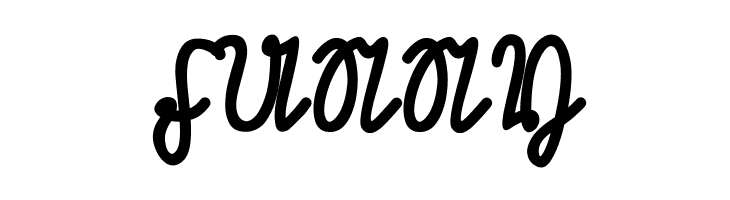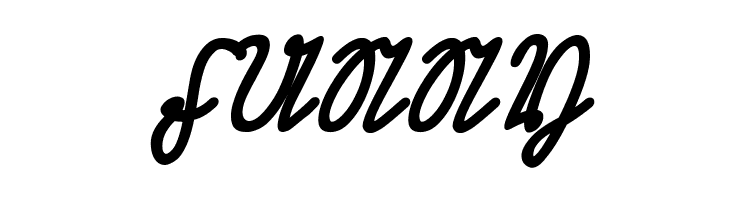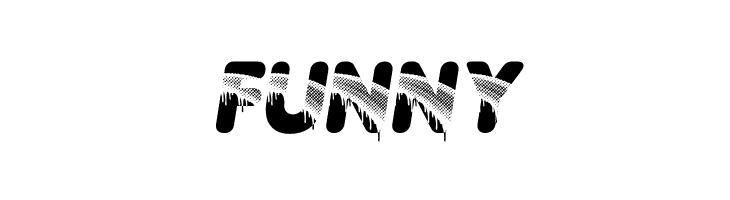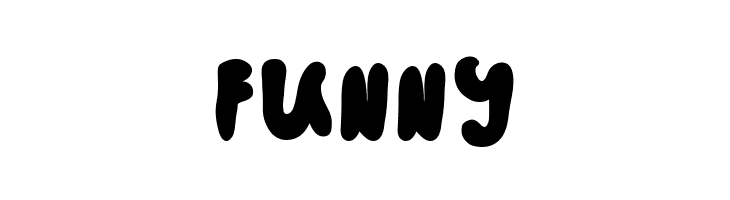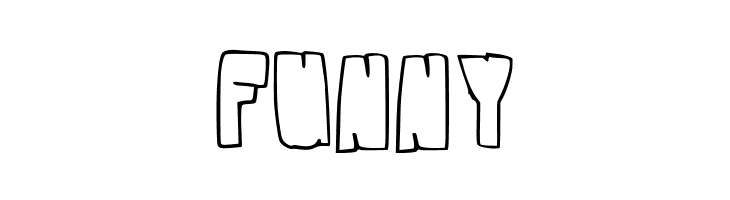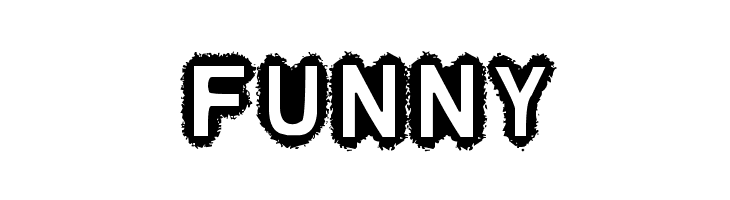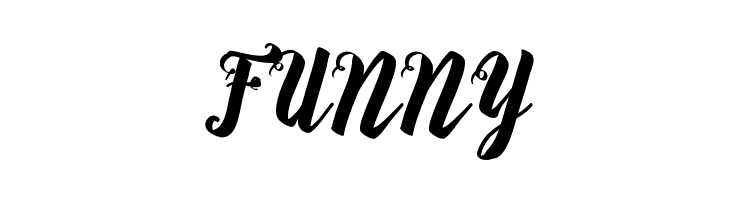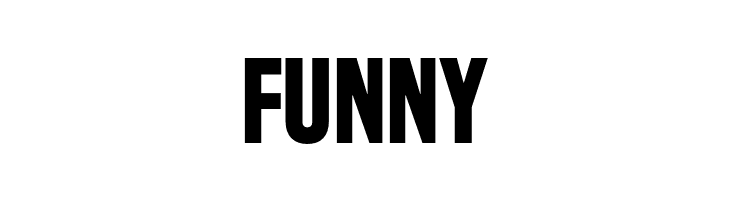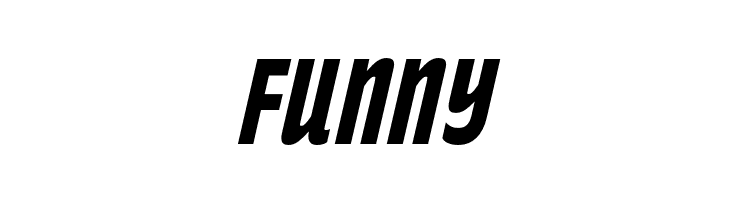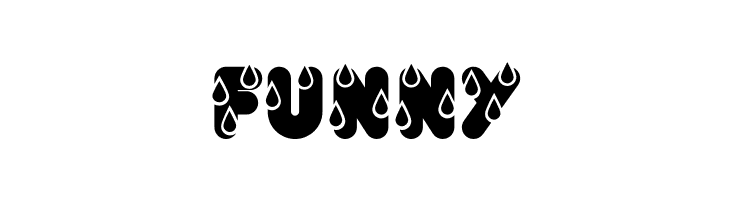
A bold, angular font with an industrial, Eastern Bloc aesthetic.
A bold, playful font with rounded edges and a bubbly, retro style.
A bold, playful, and italicized font with rounded strokes and close spacing.
A bold, playful font with a dripping effect on uppercase letters and solid, rounded lowercase letters.
A bold, playful font with raindrop motifs, perfect for creative and engaging designs.
A modern, geometric font with a bold and structured design.
A bold, modern sans-serif typeface with strong, consistent strokes.
A bold, modern sans-serif font with high legibility and balanced character spacing.
A modern, bold, italic sans-serif font with a sleek and slightly condensed style.
A bold, clean sans-serif font with a modern and professional look.
A classic, calligraphic font with bold strokes and elegant curves.
A bold, elegant script font with sweeping strokes and decorative flourishes.
A bold, impactful font with thick strokes and a slightly condensed style.
A bold, hand-drawn font with an ancient script-inspired design.
A bold, slanted font with a dynamic and modern style.
A playful, bold font with a hand-drawn, whimsical style.
A modern, rounded font with uniform stroke width and balanced spacing.
A clean, modern geometric font with balanced spacing and clear characters.
A modern, rounded font with a clean and approachable design.
A bold serif typeface with strong, authoritative characters and classic elegance.
A bold, cursive font with fluid, connected strokes and a dynamic appearance.
A bold, cursive font with a dynamic slant and fluid connections.
A bold, cursive font with a flowing, handwritten style.
A bold, expressive script font with fluid, interconnected strokes.
A bold, expressive script font with fluid, interconnected strokes and decorative flourishes.